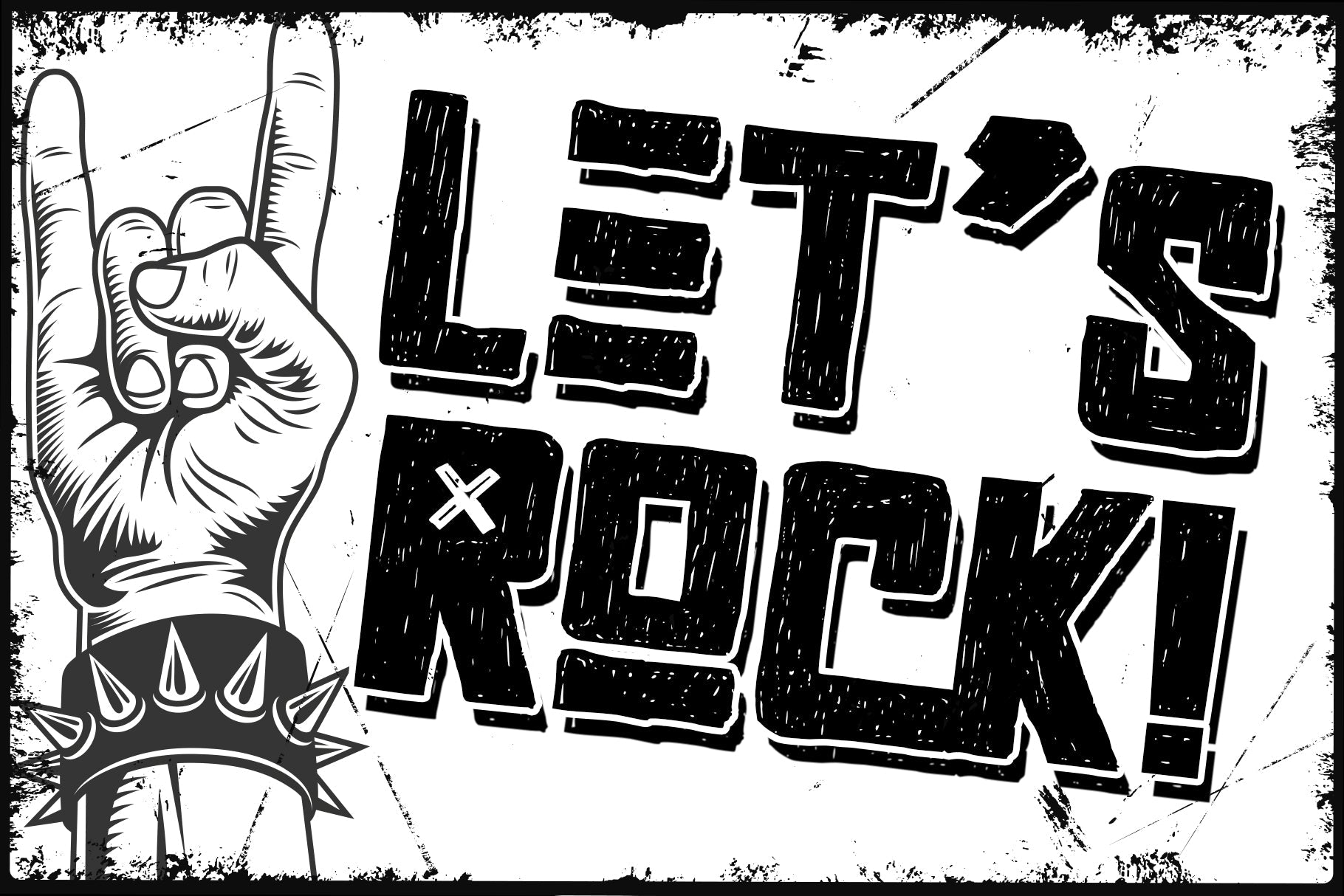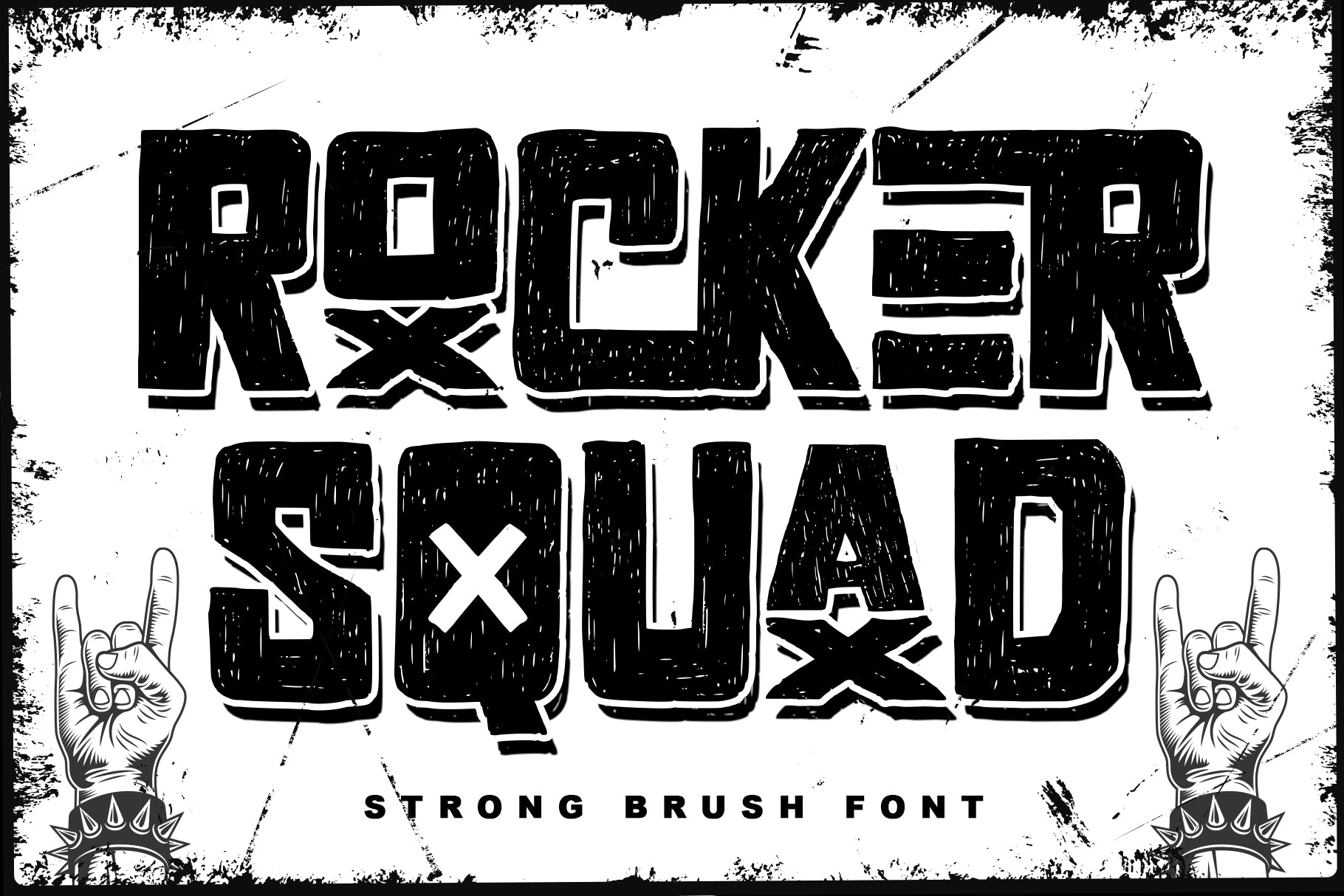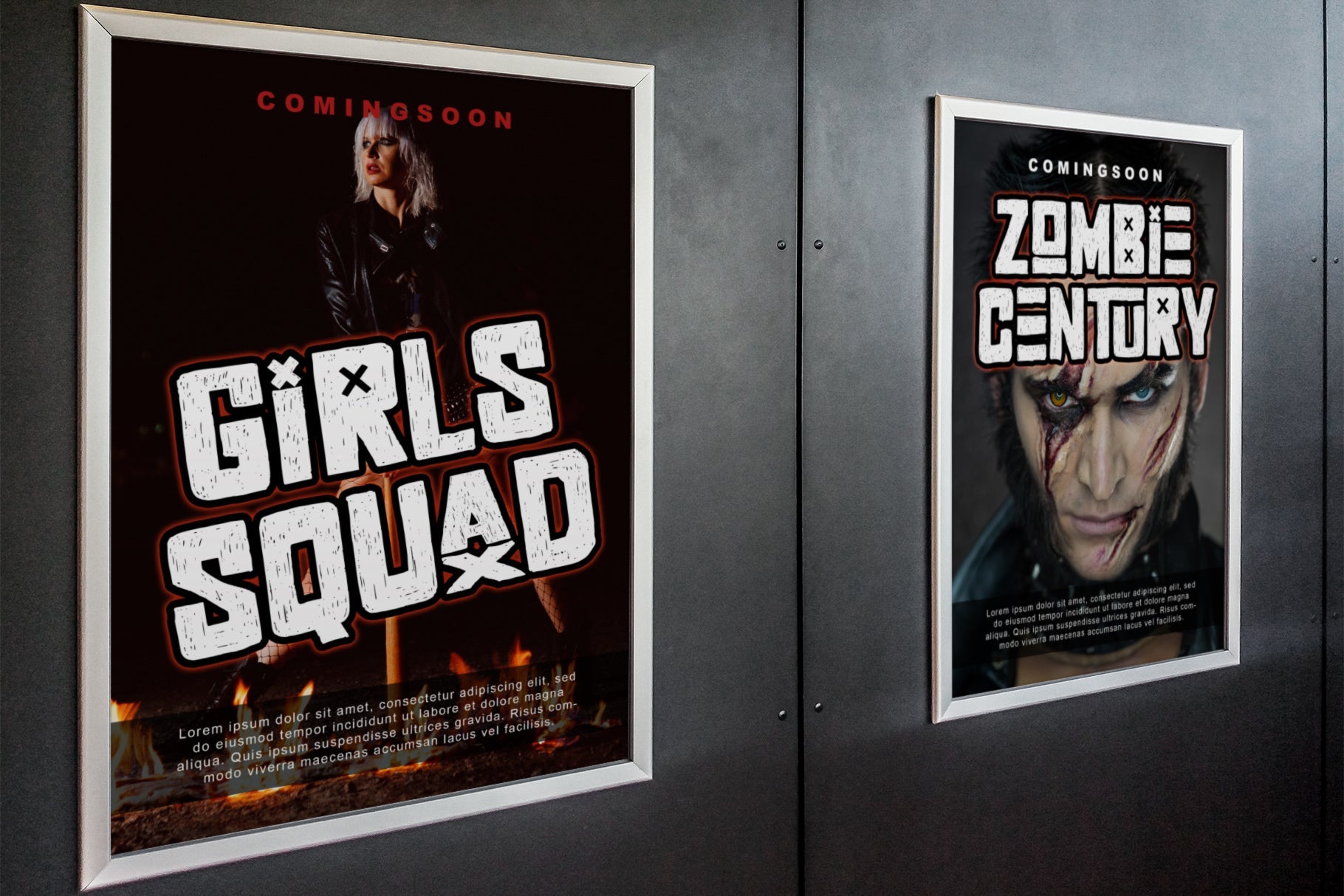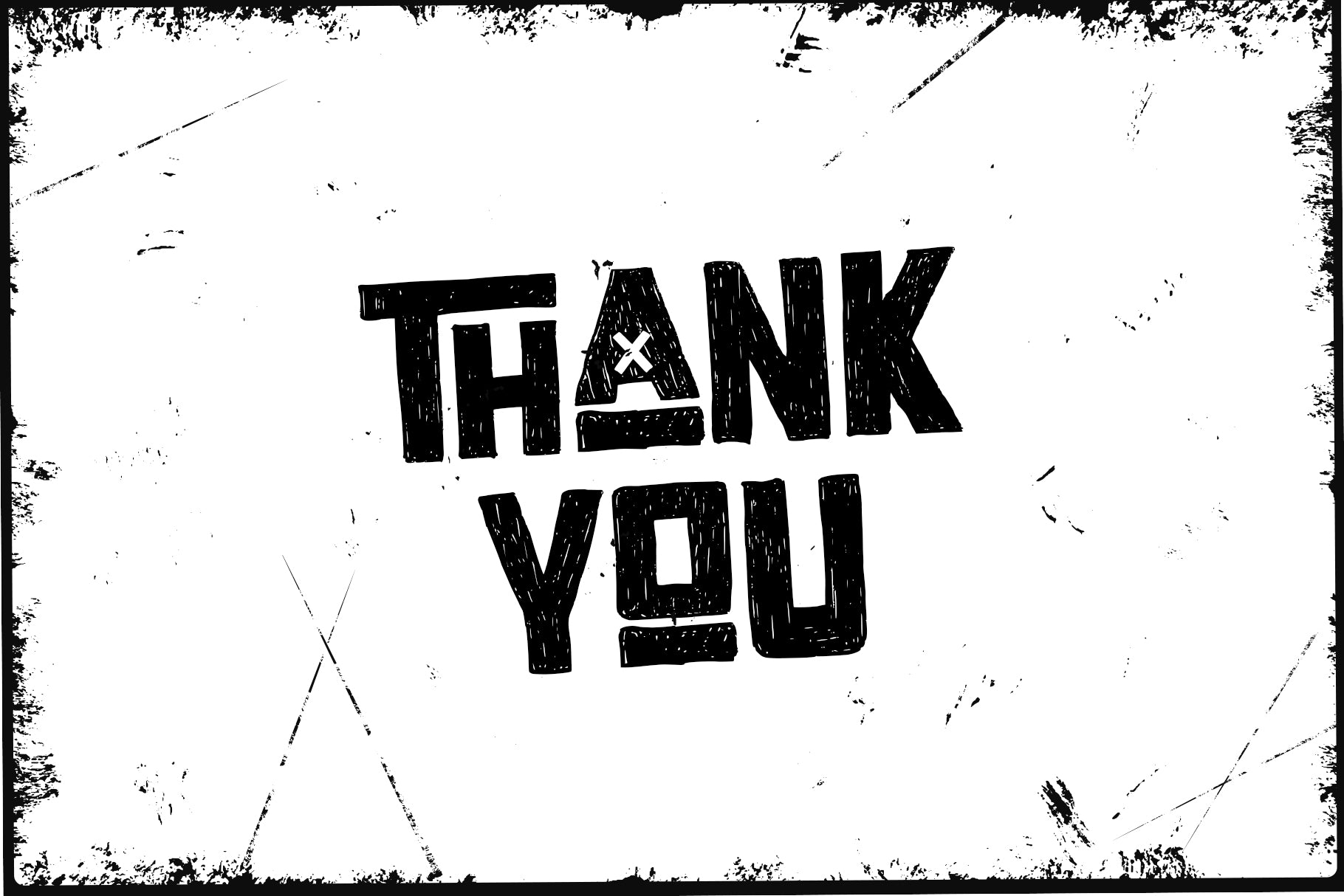
About Rocker Squad
Rocker Squad is a natural dry brush font that has a cool bold display. It’s perfect for logos, quotes, posters, movies, and every other design which needs a unique bold touch. No matter the topic, this font will be an incredible asset to your fonts’ library, as it has the potential to elevate any creation. This font is PUA encoded which means you can access all of the amazing glyphs and ligatures with ease!